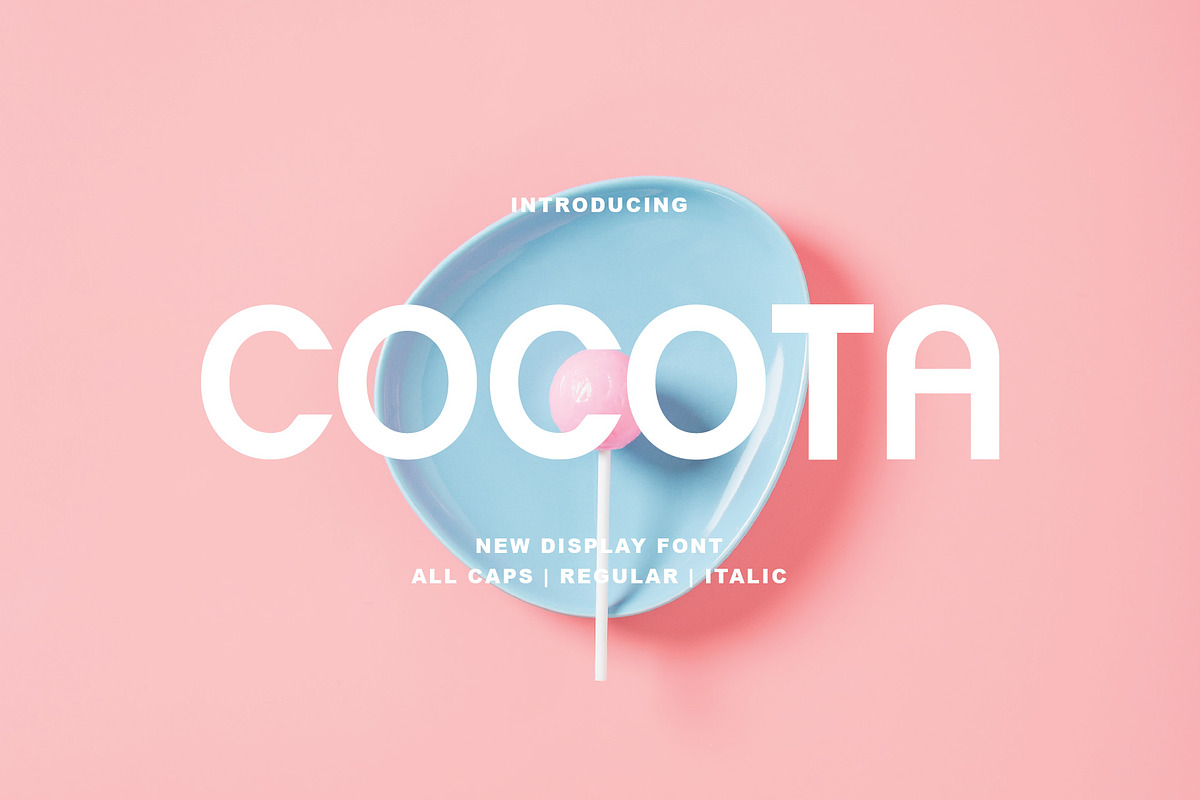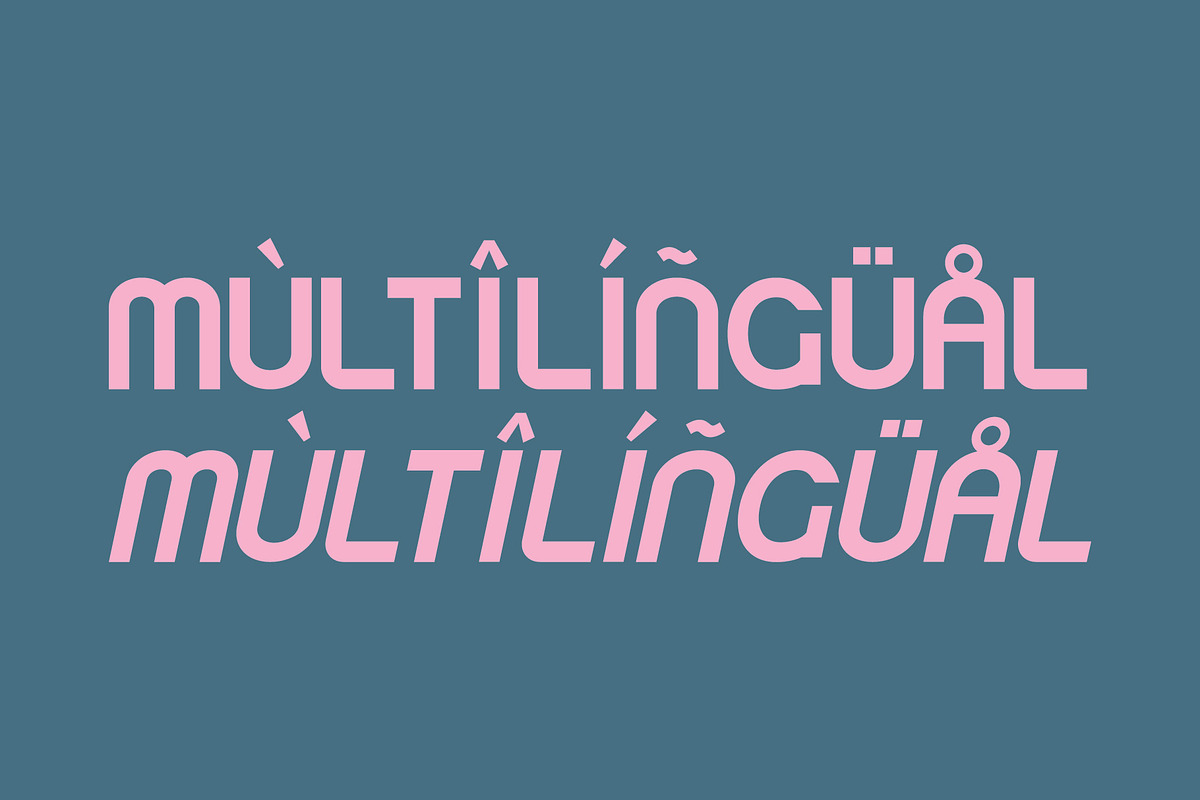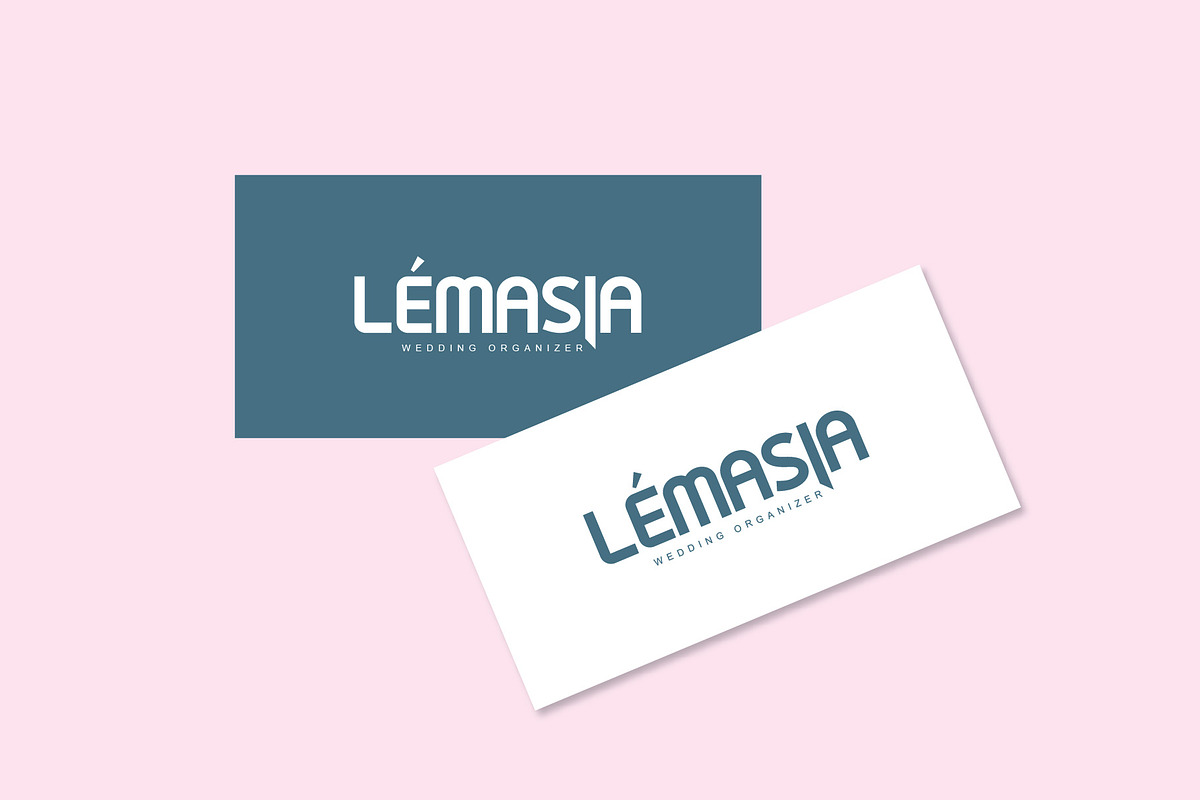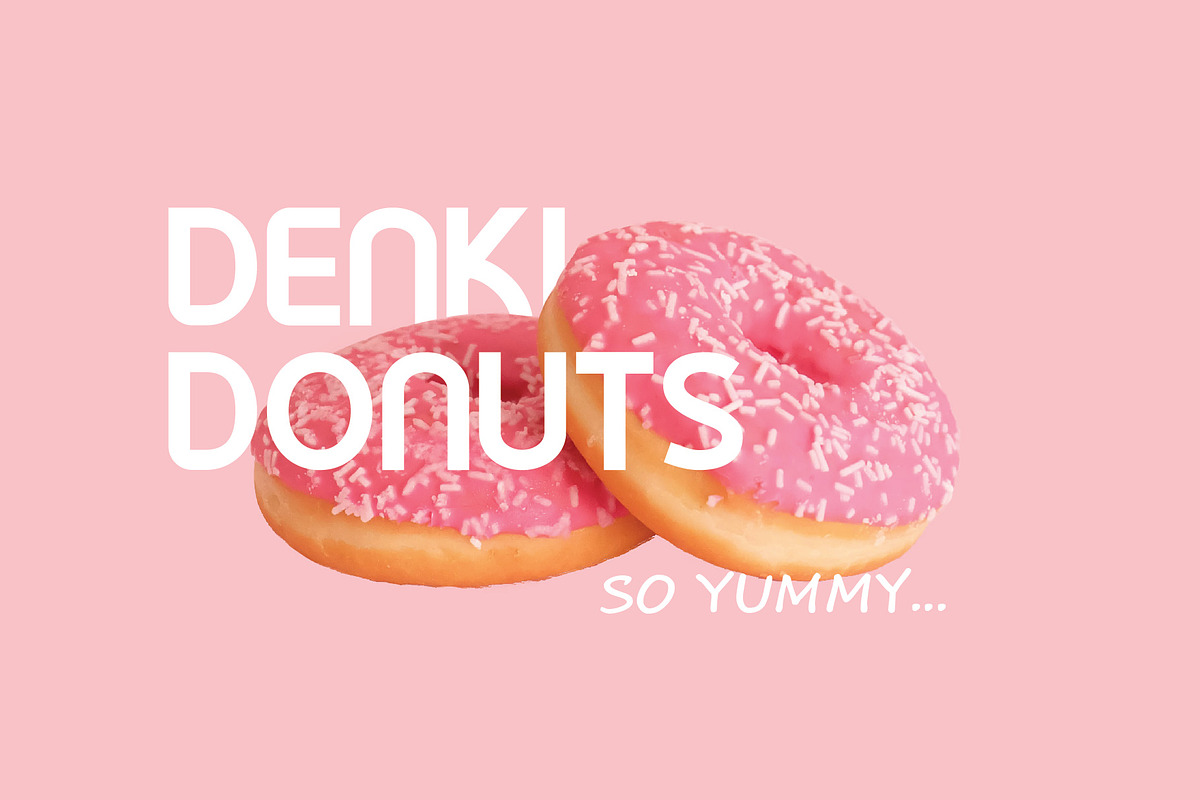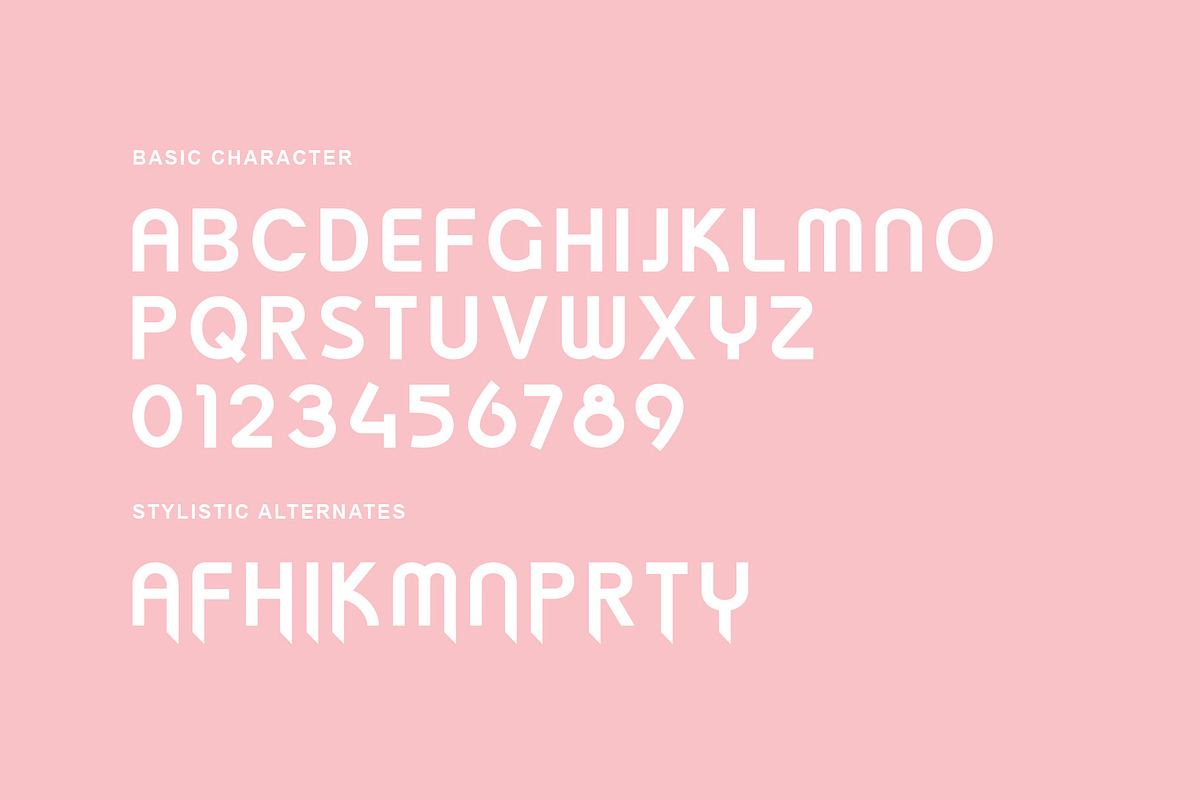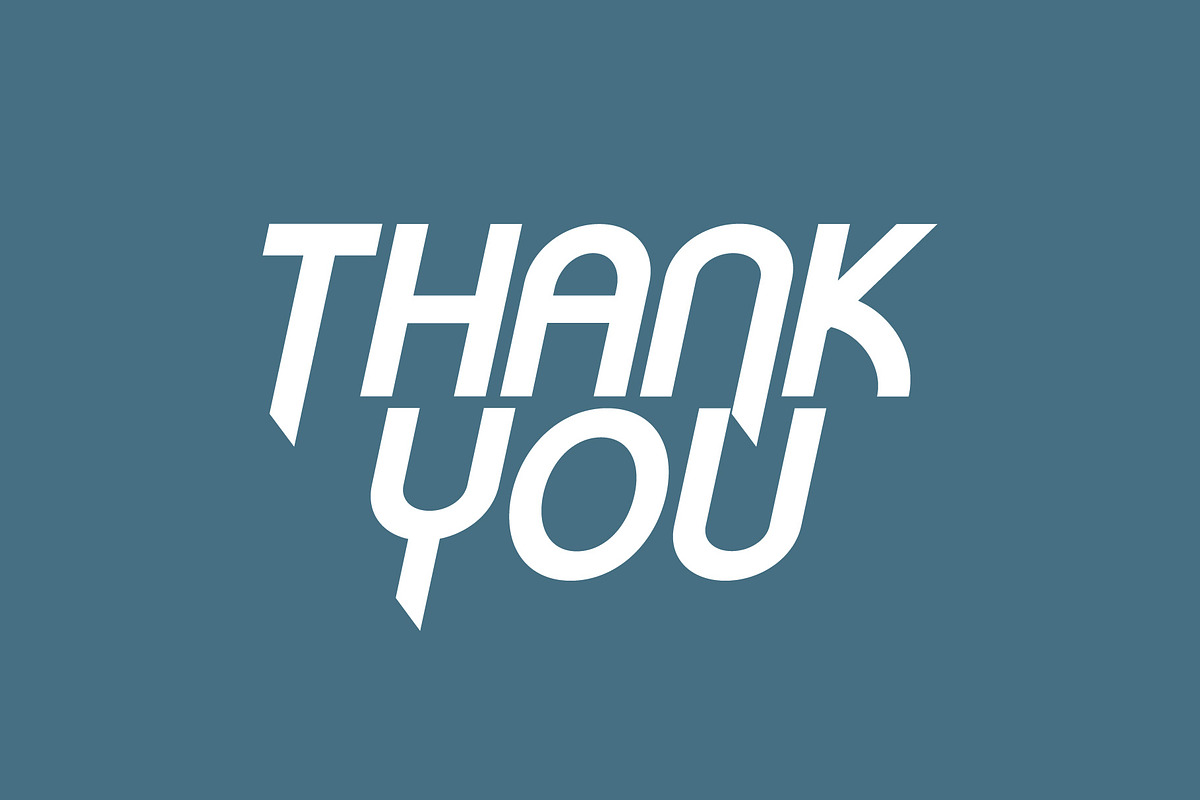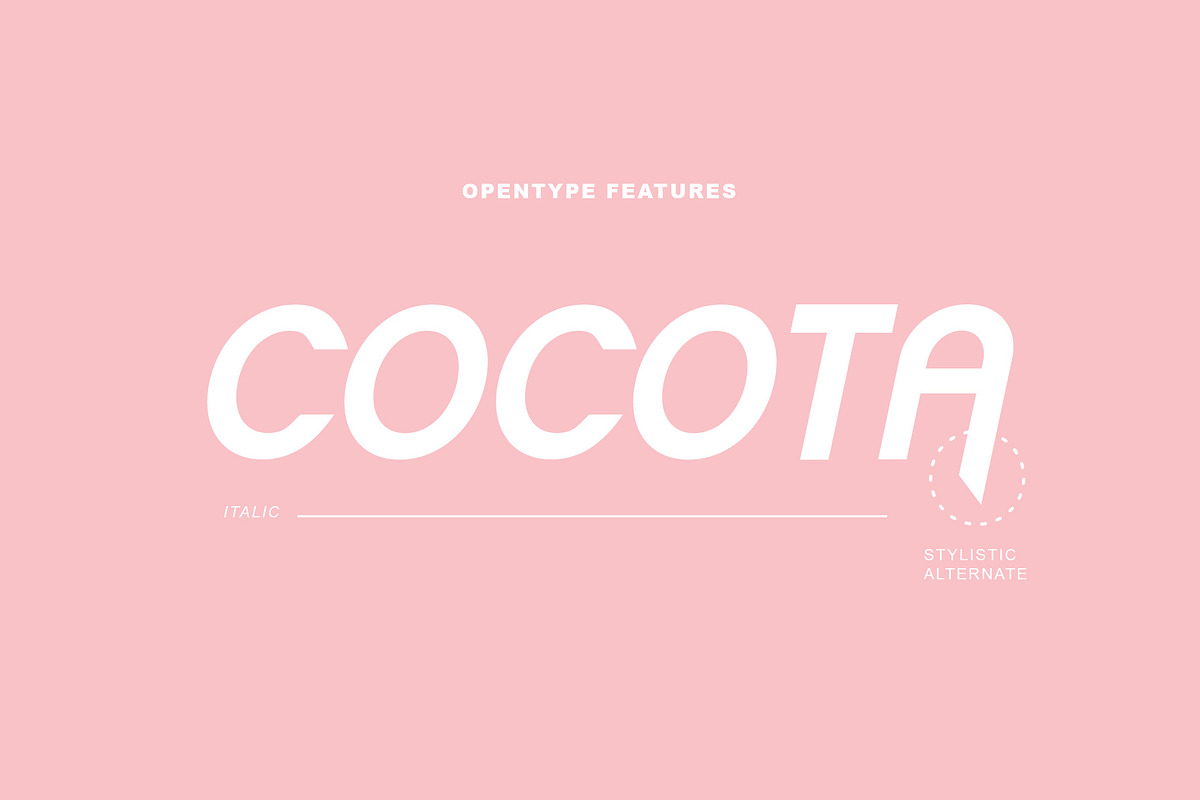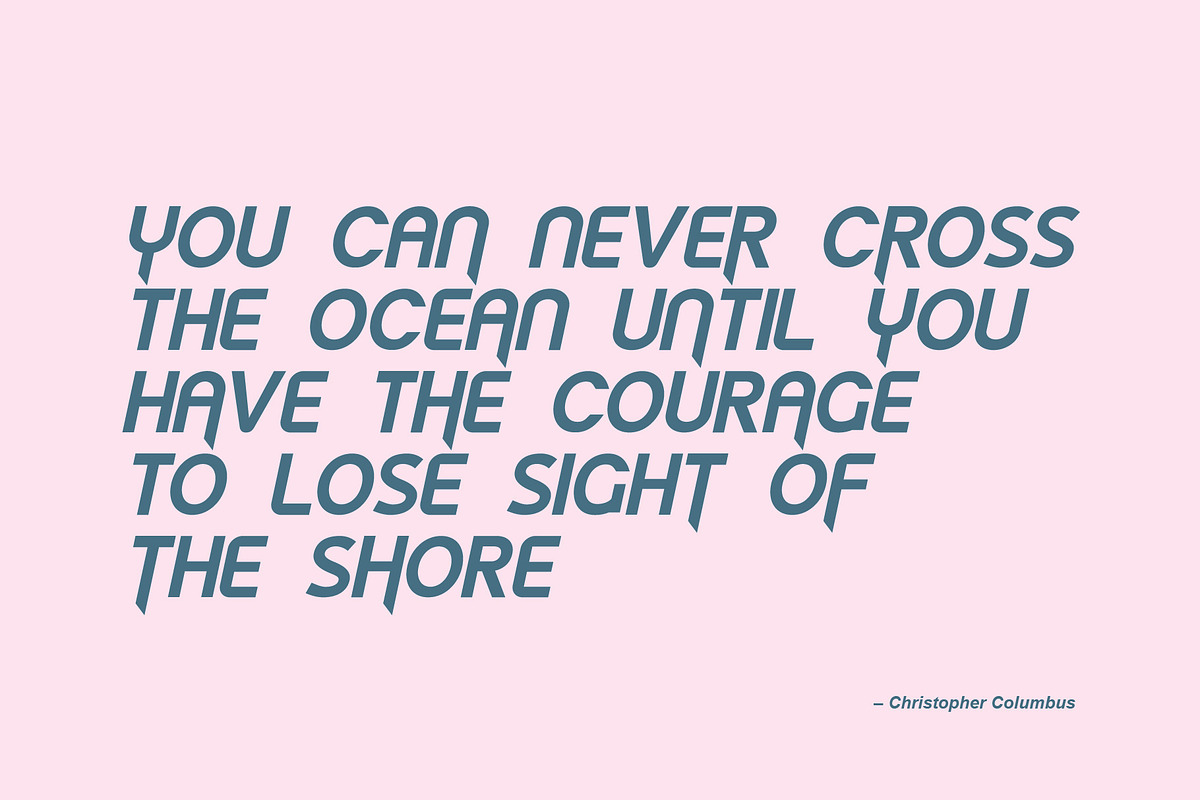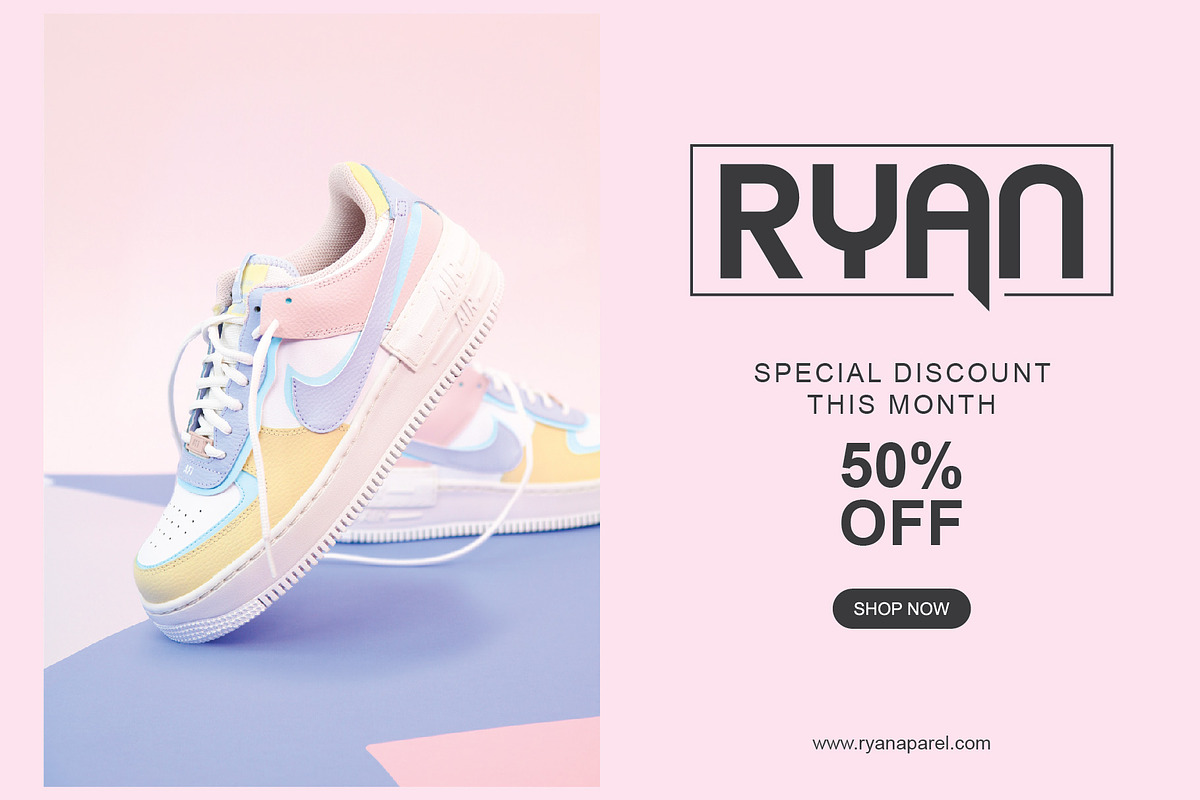
COCOTA
Cocota is a sans serif/display font. This font has a gentle and authoritative character. You can use this font to make banners, advertisements, websites, business cards, quotes, and more.
The advantages of this font include features such as: Regular, Italic, All Caps, Stylistic Alternate.